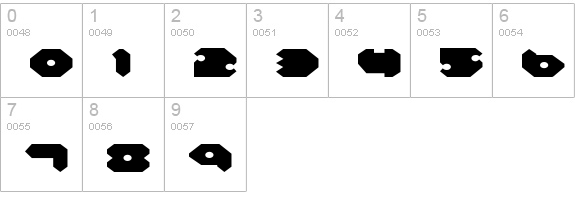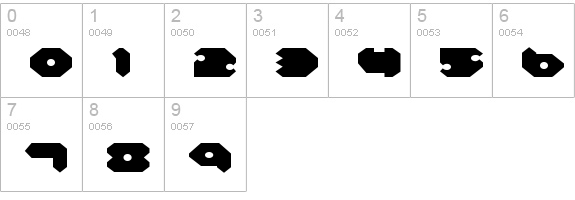
Feldercarb Expanded Font Details
Feldercarb Expanded is a distinctive, extended-width variant in the Feldercarb typeface family \xE2\x80\x94 well suited to design and typography projects.
Feldercarb Expanded font is a modern and sleek typeface that exudes sophistication and elegance. With its clean lines and bold presence, this font is perfect for adding a touch of contemporary flair to any design project. The expanded version offers a wider structure, making it ideal for headlines, titles, and other prominent text elements. What makes Feldercarb Expanded font even more appealing is that it is completely free to download at FontsMarket.com. This means that you can easily access this versatile and stylish font without any cost, making it a valuable addition to your font library. Don't miss out on the opportunity to enhance your designs with the timeless appeal of Feldercarb Expanded font. Download it for free today at FontsMarket.com and elevate your projects with its unique charm and versatility.